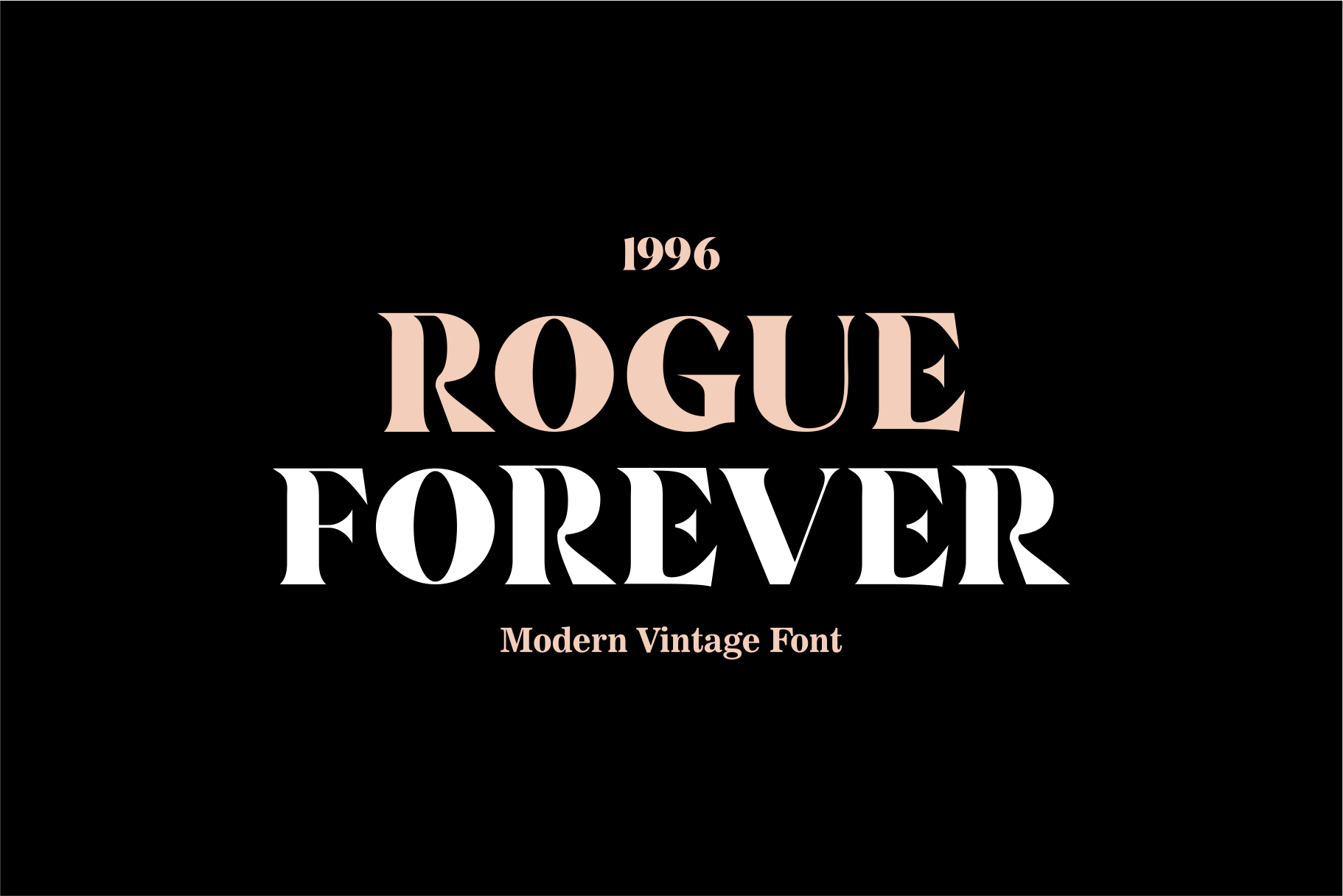
ROGUE FOREVER - Modern/Vintage Font
ROGUE FOREVER - Modern/Vintage Font will perfect for many project: fashion, magazines, logo, branding, photography, invitations, wedding invitation, quotes, blog header, poster, advertisements, postcard, book, websites, etc.
ROGUE FOREVER stylish font It has both modern and retro look - clear, modern and fun. Helps to create layout design in 60s or 70s, 80s, 90s design projects.